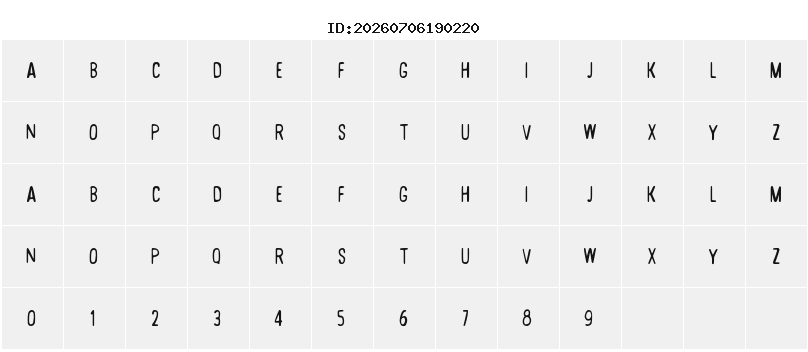
• Font Name: Desert Road
• Full Font Name: Desert Road
• Version: Version 1.00 March 25, 2016, initial release
• Designer: Zaffar Ansari
About Desert Road.otf
Desert Road.otf is a modern, elegant sans-serif font designed for ultimate readability and visual harmony. Perfect for branding, headlines, web design, and print materials.